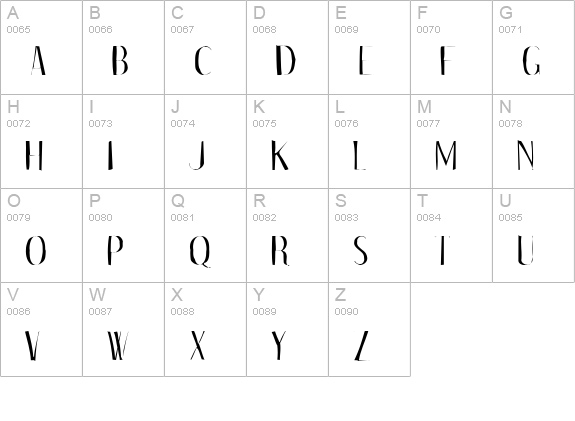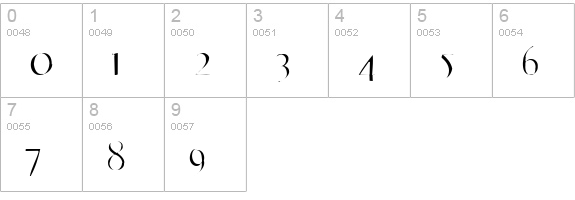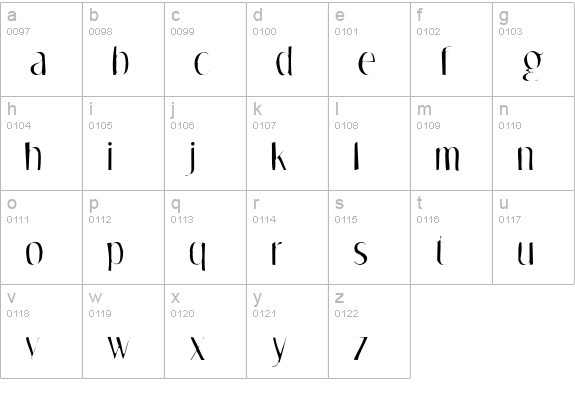
Dream Orphans Gaunt is a sleek and elegant font that exudes a sense of sophistication and modernity. Its slim and delicate letterforms make it perfect for adding a touch of refinement to any design project. This font strikes the perfect balance between classic and contemporary, making it a versatile choice for a wide range of applications. What sets Dream Orphans Gaunt apart is its unique combination of grace and strength. The font's graceful curves and sharp angles create a striking visual impact, while its clean lines and minimalistic design ensure readability and legibility in any context. Whether you're designing a sleek and stylish brand identity, crafting elegant invitations, or creating eye-catching posters, Dream Orphans Gaunt is sure to elevate your project to the next level. Its timeless appeal and modern sensibility make it a must-have addition to any designer's toolkit. Best of all, Dream Orphans Gaunt is available for free download at FontsMarket.com, allowing you to access this stunning font with ease. Don't miss out on this opportunity to add a touch of elegance to your designs – download Dream Orphans Gaunt today and see the difference it can make!